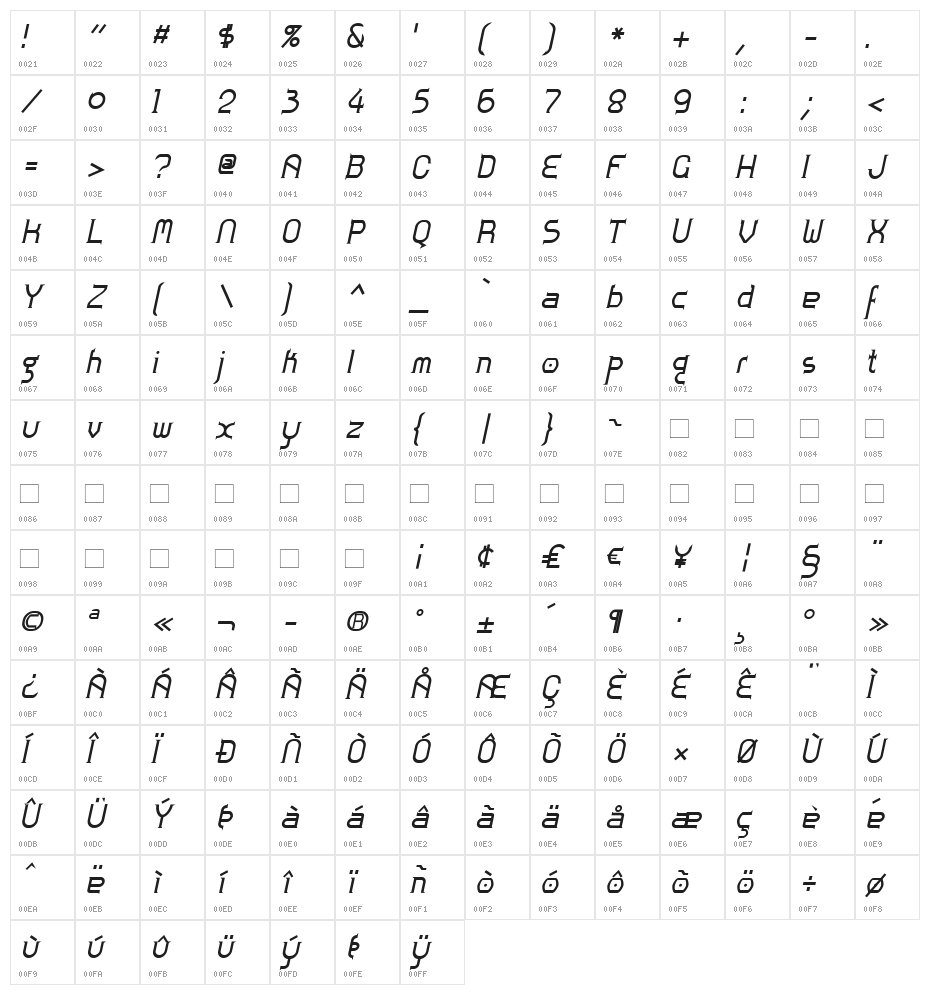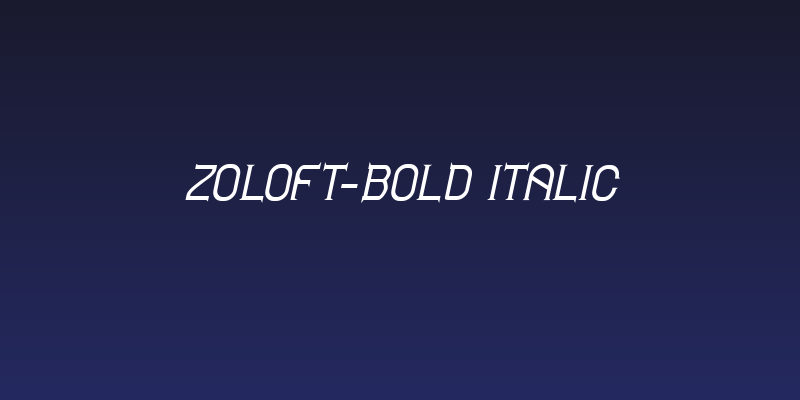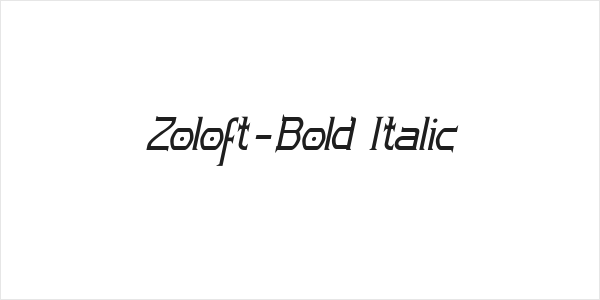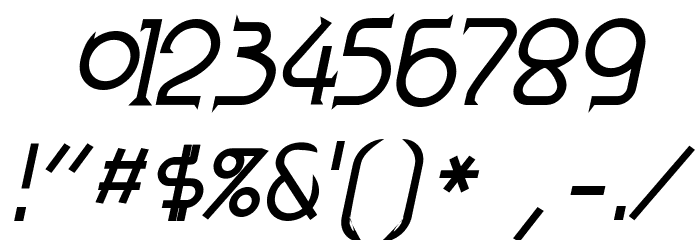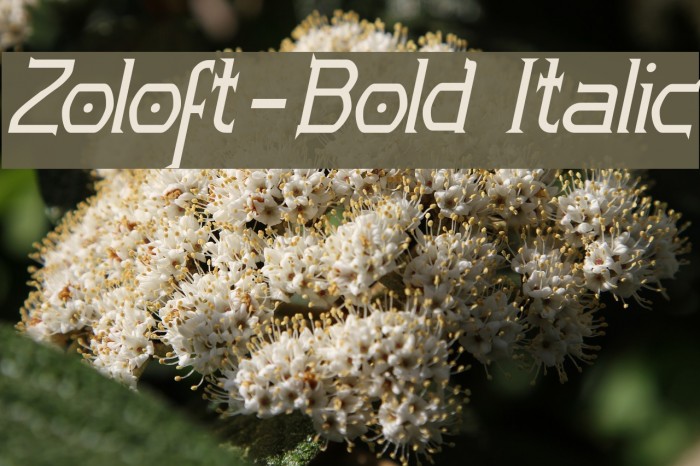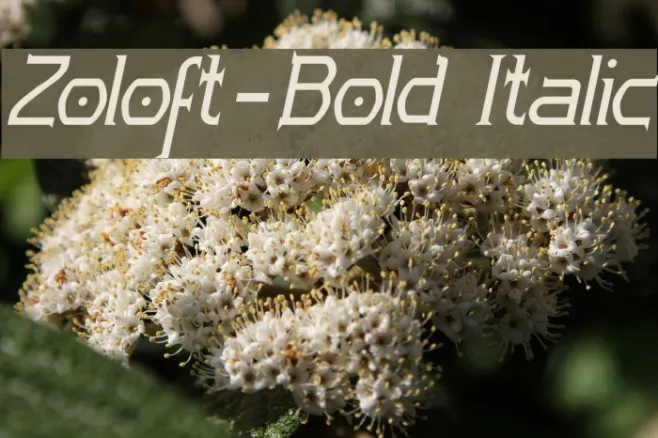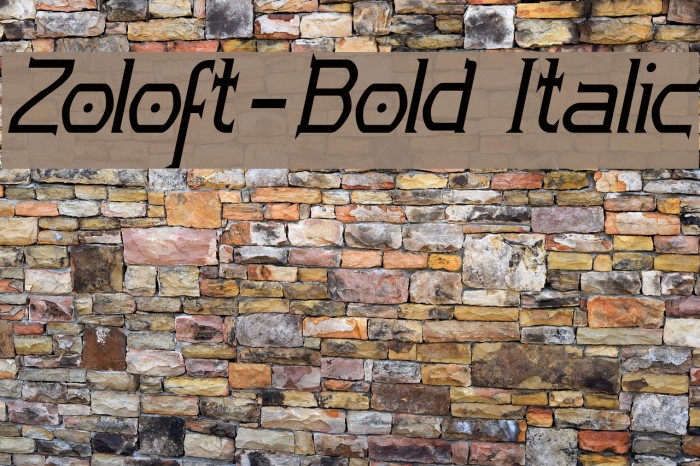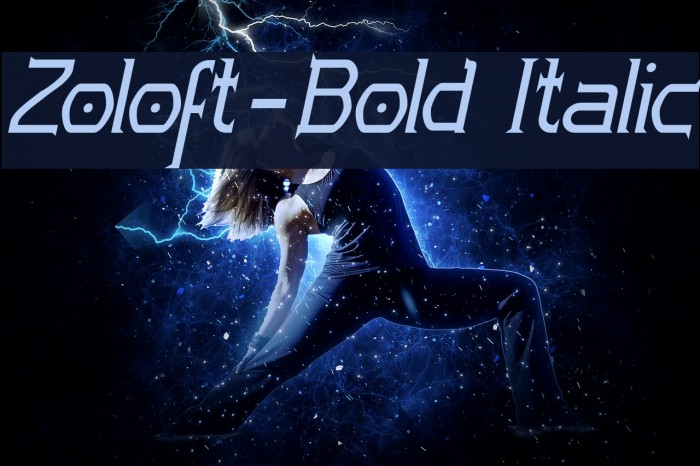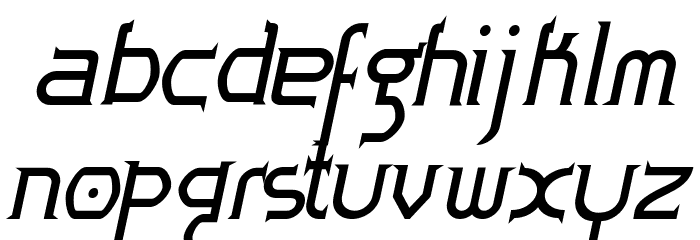
Zoloft-Bold Italic Font
✎ Modern
Zoloft-Bold Italic Description
This font features a bold and italicized style with a modern and dynamic appearance. The characters are slightly slanted, giving a sense of movement and energy. The strokes are thick and consistent, providing a strong visual impact. The design includes unique angular cuts and sharp edges, particularly noticeable in letters like 'A', 'K', and 'R'. The numerals and special characters maintain the same bold and italicized characteristics, ensuring uniformity across all glyphs. This font is ideal for projects that require a bold statement and a contemporary feel.
| Categories | Modern |
| Use Case | Headlines, Logos, Branding |
| Proposed Projects | Ideal for branding, advertising, headlines, and any design requiring a bold, modern look. |